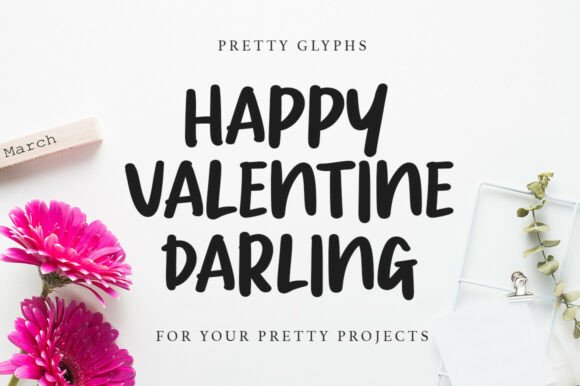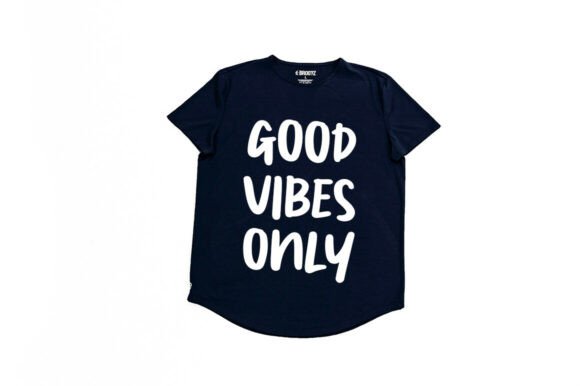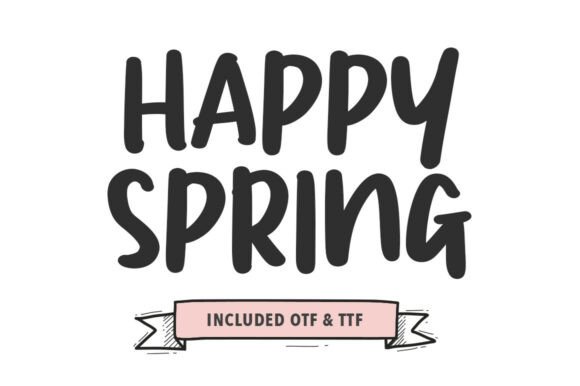
Introducing Happy Spring Font: The Perfect Typeface for Seasonal Designs
As the seasons change and spring arrives, designers and crafters are on the lookout for fresh and vibrant typography to capture the spirit of renewal and growth. Look no further than the Happy Spring font, a robust and cheerful display typeface that’s perfect for a wide range of design applications. In this article, we’ll explore the features and benefits of the Happy Spring font, and show you how to make the most of this beautiful typeface in your designs.
The Characteristics of Happy Spring Font
The Happy Spring font features thick, confident lines with a slightly irregular, organic feel that suggests it was hand-painted with care. This unique blend of boldness and charm makes it an excellent choice for seasonal sales banners, garden center branding, or cheerful home decor prints. The bold weight of the Happy Spring typeface ensures maximum legibility from a distance, making it ideal for storefront signage or large-scale event posters.
Perfect Pairings with Happy Spring Font
One of the best things about the Happy Spring font is its versatility. You can easily pair it with thin, elegant scripts to create a sophisticated yet grounded design hierarchy for flower shops or lifestyle blogs. This contrast between bold and delicate typography adds visual interest and creates a beautiful balance that’s sure to capture the attention of your audience.
Use Cases for Happy Spring Font
So, what can you use the Happy Spring font for? The possibilities are endless! Here are some ideas to get you started:
- Logo & brand identity: Use Happy Spring font to create a bold and eye-catching logo for your business or brand.
- Social media & quote designs: Add a splash of color and personality to your social media posts and quotes with this cheerful typeface.
- Apparel, merch & packaging: Create eye-catching apparel, merchandise, and packaging with Happy Spring font.
- Posters, banners & stickers: Use Happy Spring font to create bold and attention-grabbing posters, banners, and stickers.
- Invitations & greeting cards: Add a personal touch to your invitations and greeting cards with this beautiful typeface.
- Cricut, Silhouette & cutting machines: Happy Spring font is perfect for crafters who love to work with cutting machines.
Why Choose Happy Spring Font?
So, why should you choose Happy Spring font for your next design project? Here are just a few reasons:
- Unique and eye-catching: Happy Spring font is a one-of-a-kind typeface that’s sure to capture the attention of your audience.
- Versatile: This typeface can be used for a wide range of design applications, from logos and branding to social media posts and packaging.
- Easy to read: The bold weight of Happy Spring font ensures maximum legibility, even from a distance.
- Easy to pair: Happy Spring font pairs beautifully with a wide range of other typography styles, making it easy to create a beautiful design hierarchy.
In conclusion, Happy Spring font is a beautiful and versatile typeface that’s perfect for designers and crafters who want to add a touch of springtime charm to their designs. With its bold and cheerful lines, this typeface is sure to capture the attention of your audience and bring a smile to their faces. Whether you’re creating logos and branding, social media posts, or packaging, Happy Spring font is the perfect choice. So why wait? Download Happy Spring font today and start creating your own beautiful designs!